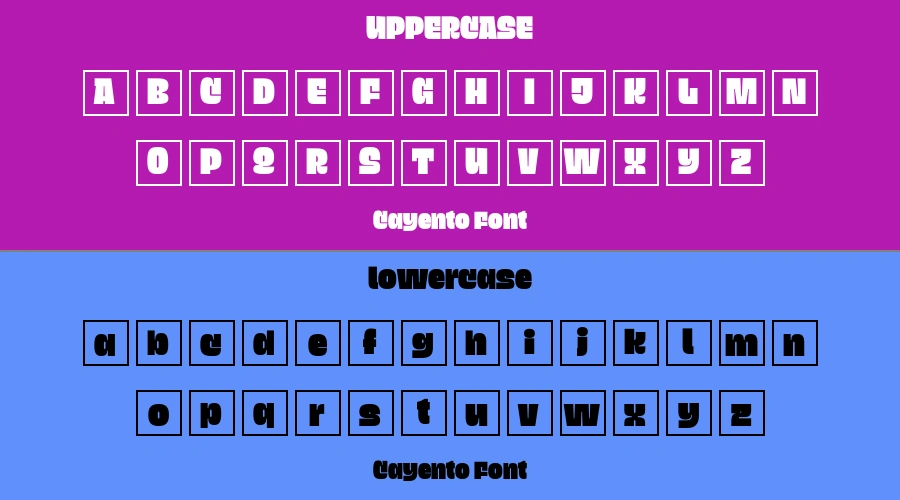
About Cayento Font
Cayento Font stands out for its distinctive combination of systematic design and reliability. Ideal for heritage brands, it provides the craftsmanship and brand differentiation that professional projects demand. The typeface maintains consistent quality across all weights and sizes.
Key features include refined measured spacing and practical mathematical symbols, enhancing typographic expression. In editorial spreads applications, Cayento Font demonstrates exceptional reproduction fidelity. The ascender height and cultural resonance contribute to its distinctive character and professional appeal.